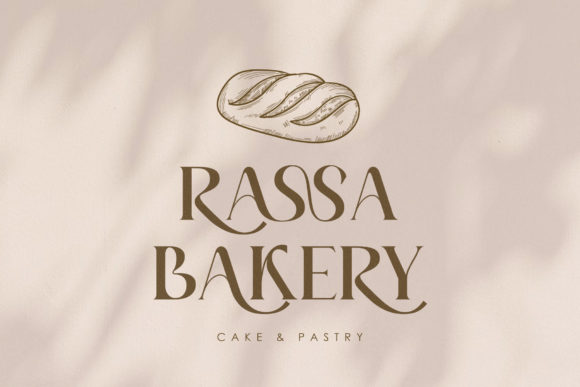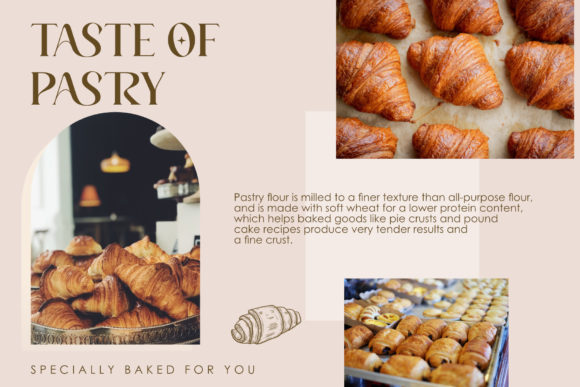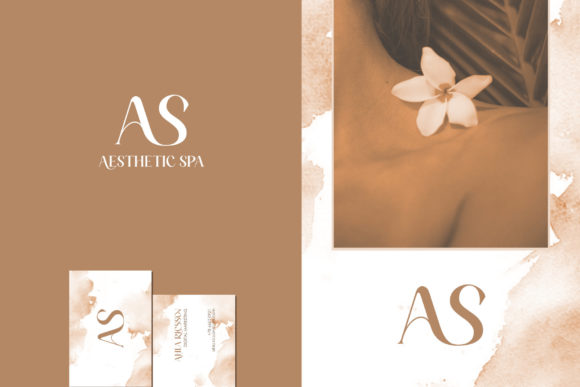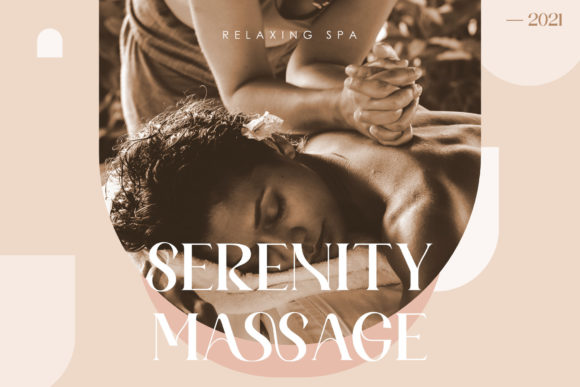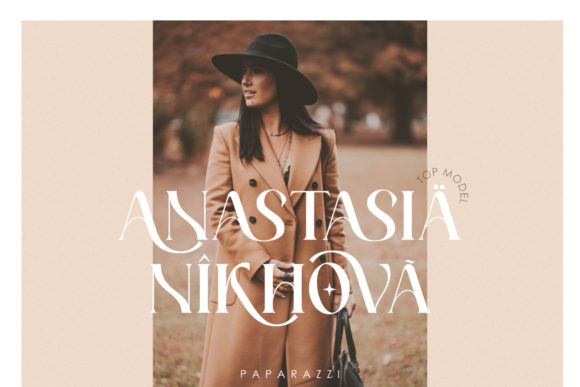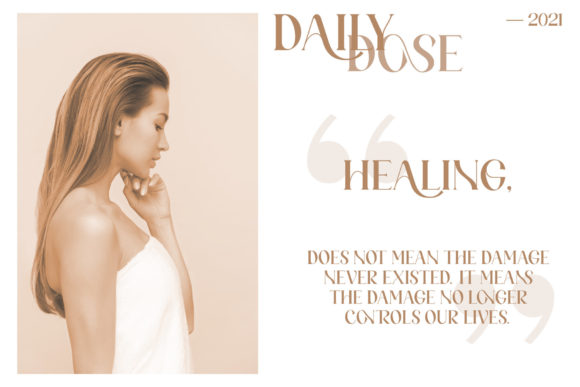
Introduction to Markova Font
Have you ever stared at a blank canvas, trying to bring a creative project to life, only to be held back by the perfect font? We’ve all been there. The right font can elevate your design from mediocre to mesmerizing, and that’s exactly what the Markova Font does. With its modern and elegant serif design, this font is sure to be a valuable addition to any designer’s library.
Whether you’re working on a high-quality brochure, a website with a transparent background, or a creative project that requires a touch of sophistication, the Markova Font is an excellent choice. Not only is it a stunning design resource, but it’s also available for free download, making it accessible to designers of all levels.
As a designer, you know how important it is to have a reliable font that can help you convey your message effectively. The Markova Font is a game-changer, and we’re excited to share its features and benefits with you in this article.
Key Features of Markova Font
- High-quality font with a transparent background, ideal for creative projects that require a clean and minimalist design aesthetic.
- Designed with a focus on legibility and readability, making it suitable for use in a variety of contexts, from body text to headings.
- Includes a comprehensive character set, supporting a wide range of languages and characters.
Honest Review: Markova Font
I recently had the chance to work with the Markova Font, and I must say it’s been a game-changer for my creative project. The high quality of this font is truly impressive, making it a valuable addition to my design resource library.
What works well: ✨ The transparent background option is a huge plus, allowing me to easily overlay the font on any image or background. The font itself is highly customizable, making it perfect for a wide range of design applications.
Some of the key features that stood out to me include:
- High-resolution support for crisp and clear text
- Extensive character set for international languages
⚠️ One of the limitations I’ve encountered is the lack of support for bold or italic text styles. While this isn’t a deal-breaker for most projects, it’s worth noting if you’re planning to use the font for a specific design application.
Overall, I’m thoroughly impressed with the Markova Font. Its high quality, versatility, and free download option make it an excellent design resource for anyone looking to elevate their creative project.
Getting the Most Out of Markova Font
To get the most out of the Markova Font, use it in combination with a transparent background. This will give your design a sleek and modern look. You can also experiment with different font sizes, colors, and styles to create a unique design. The Markova Font is also available for free download, making it an excellent design resource for creative projects.
The Markova Font is commonly used for creative projects, such as posters, flyers, business cards, presentations, and documents. Its high quality and versatility make it an ideal design resource for designers and non-designers alike. You can use it for personal or commercial projects, and it’s perfect for creating a professional-looking design.